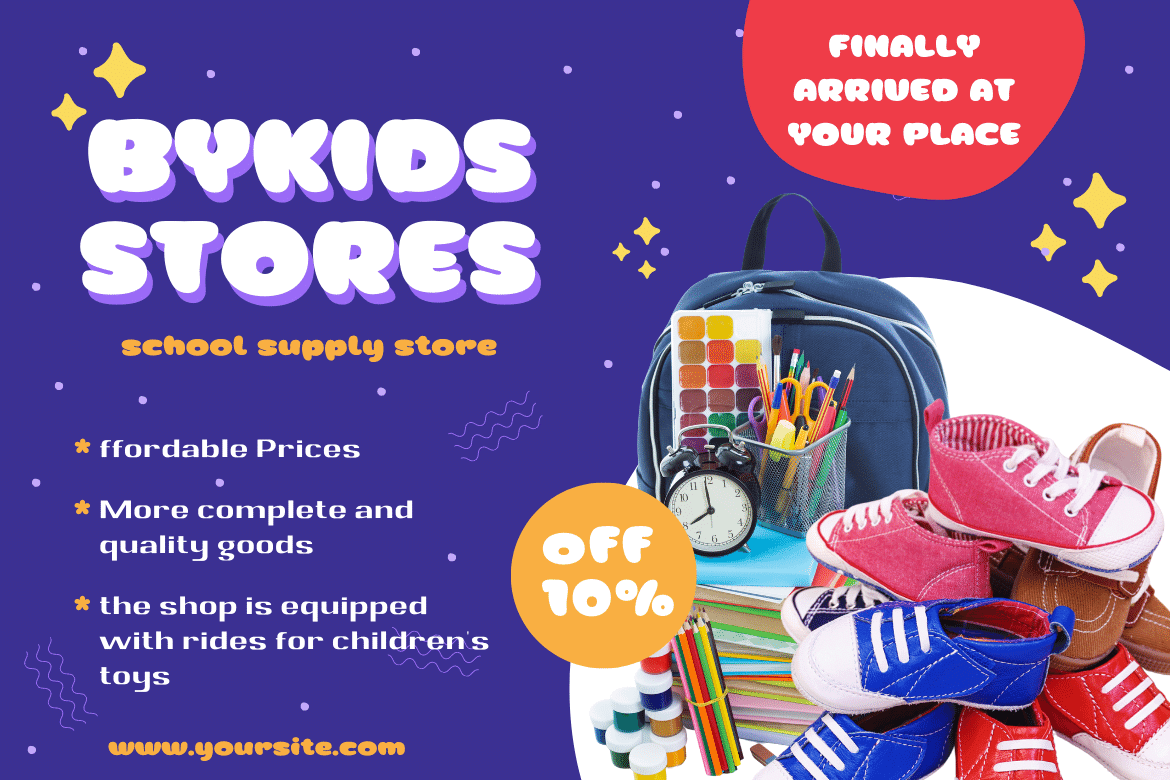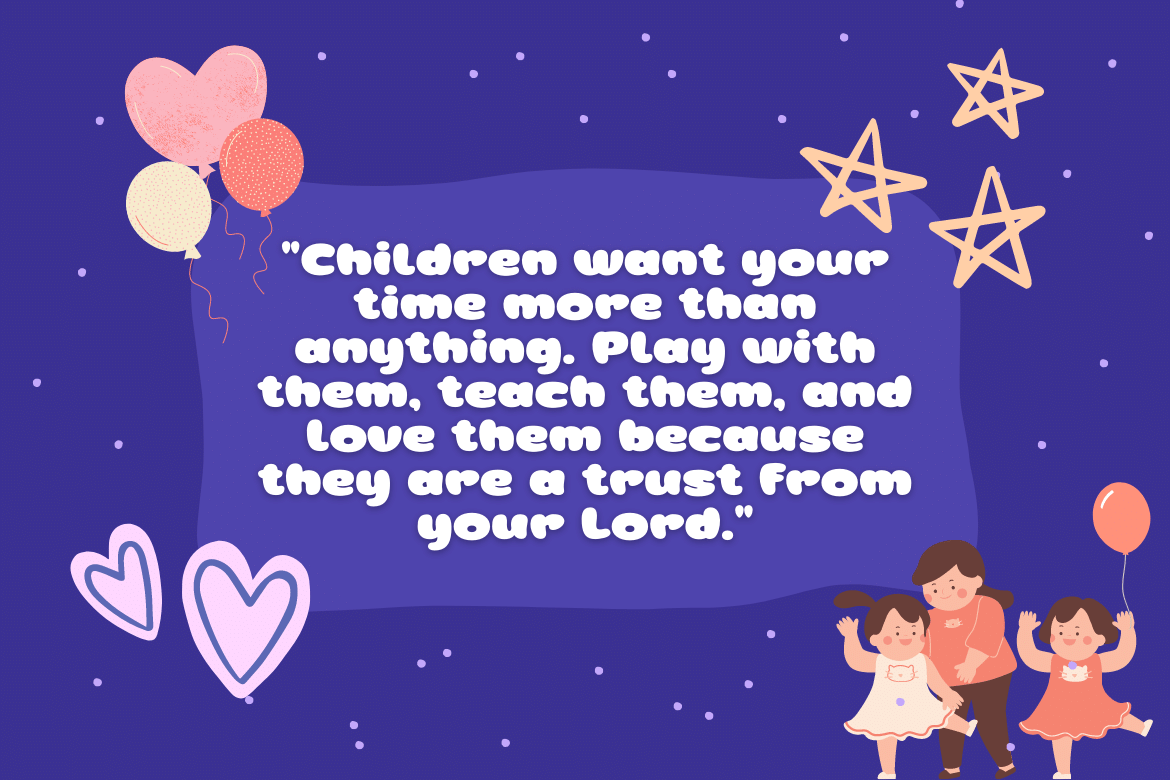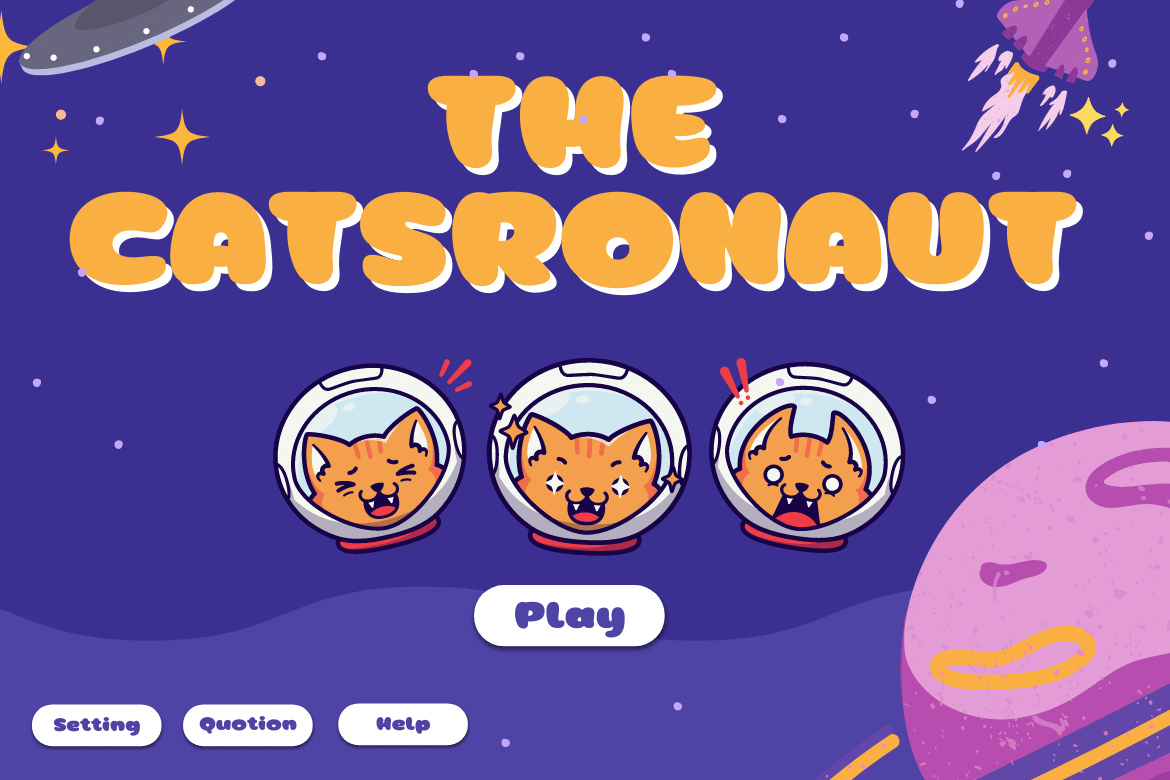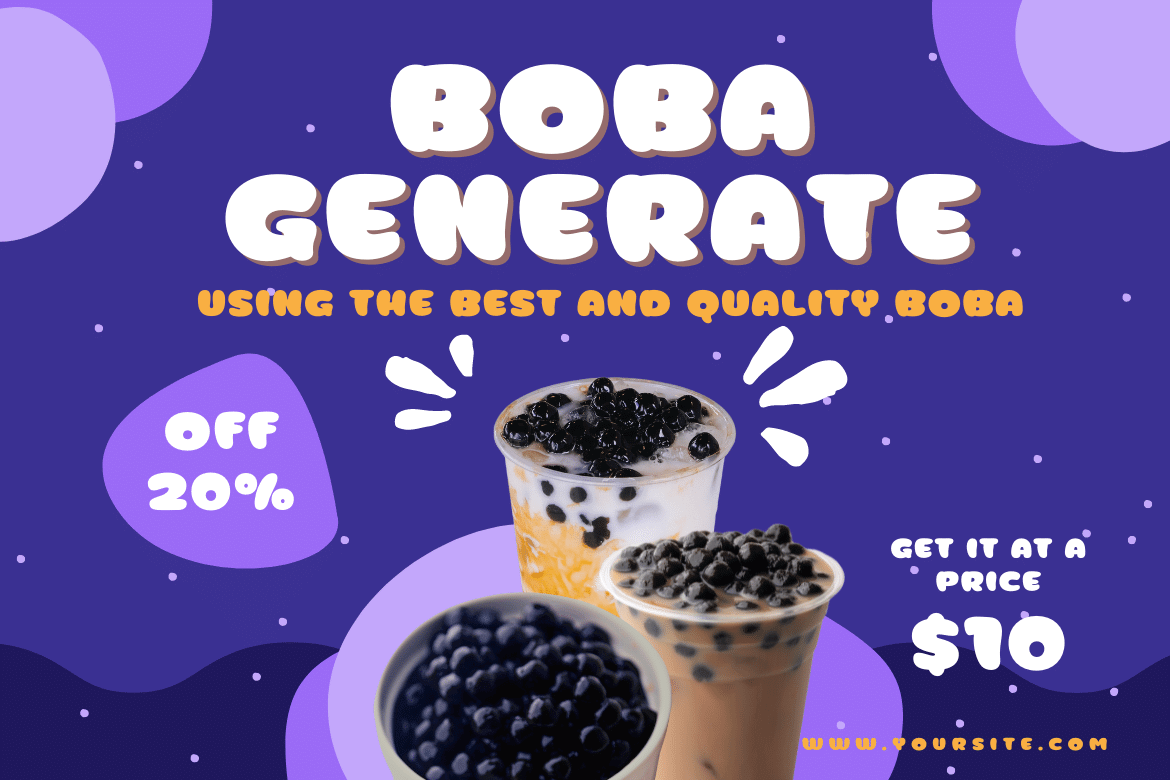
Ginbe Font
Ginbe Display Font
Ginbe Font, our newest display font, has lovely curves that give your designs a handcrafted, contemporary feel that’s cute and lovely. This design is perfect for any project that requires a simple and clean appearance. It will help you with all of your visual projects.